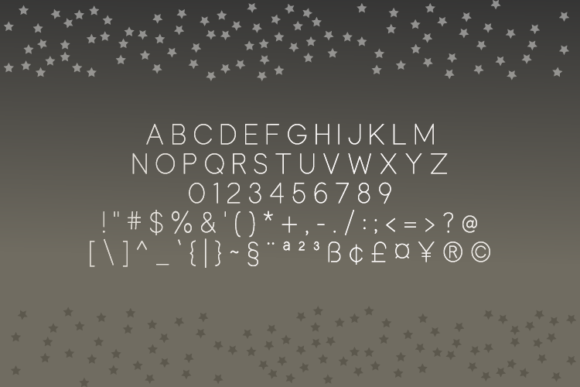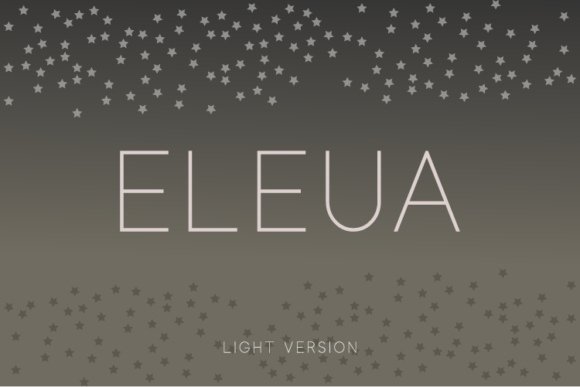
Introducing Eleua Light Font: A Simple yet Elegant Sans Serif Typeface
Are you a designer or crafter looking for a font that exudes simplicity, elegance, and versatility? Look no further than Eleua Light Font. This sans serif typeface is designed to provide a clean and beautiful feel to your designs, making it perfect for both formal and non-formal projects. In this article, we’ll dive into the features and benefits of Eleua Light Font and explore how it can elevate your design game.
What is Eleua Light Font?
Eleua Light Font is a part of the Eleua font family, a collection of sans serif fonts designed to offer a range of weights and styles to suit various design needs. With 10 weights to choose from, you can select the perfect font to match your project’s tone and style. Eleua Light Font, in particular, is a simple and casual sans serif font that boasts a clean and beautiful arrangement of letters.
Key Features of Eleua Light Font
• Clean and Simple Design: Eleua Light Font features a neat and organized design, making it perfect for designs that require a clean and minimalist look.
• 10 Weights to Choose From: The Eleua font family offers 10 weights, allowing you to select the perfect font to match your design’s tone and style.
• Versatile and Adaptable: Eleua Light Font is suitable for both formal and non-formal designs, making it a versatile addition to your font library.
• Easy to Read: The font’s clear and simple design ensures that your text is easy to read, even at smaller sizes.
Benefits of Using Eleua Light Font
So, why should you choose Eleua Light Font for your next design project? Here are just a few benefits of using this elegant sans serif font:
• Enhance Your Design’s Legibility: With its clear and simple design, Eleua Light Font ensures that your text is easy to read, making it perfect for designs that require a high level of legibility.
• Add a Touch of Elegance: Eleua Light Font’s clean and beautiful design adds a touch of elegance to your designs, making it perfect for formal and non-formal projects.
• Increase Versatility: With 10 weights to choose from, you can use Eleua Light Font in a variety of designs, from brochures and posters to websites and social media graphics.
Who Can Benefit from Eleua Light Font?
Eleua Light Font is perfect for a range of designers and crafters, including:
• Graphic Designers: Add a touch of elegance to your designs with Eleua Light Font’s clean and simple design.
• Web Designers: Use Eleua Light Font to create responsive and easy-to-read text on your website.
• Crafters and Makers: Add a professional touch to your craft projects with Eleua Light Font’s elegant design.
In conclusion, Eleua Light Font is a simple yet elegant sans serif typeface that offers a range of benefits and features for designers and crafters. With its clean and beautiful design, versatility, and ease of use, Eleua Light Font is perfect for a variety of design projects. Whether you’re a graphic designer, web designer, or crafter, Eleua Light Font is a great addition to your font library.